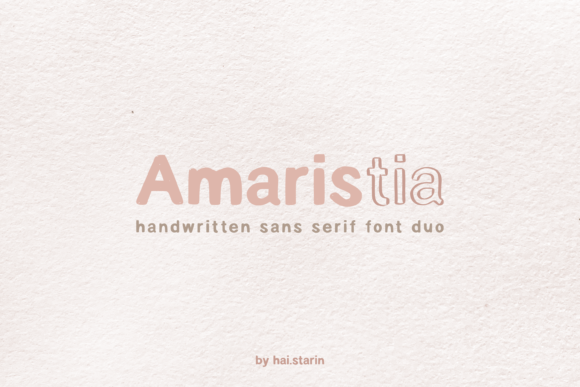
**Unleash Your Embroidered Vision with Amaristia: The Epitome of Elegance and Style**
Journey into the realm of embroidery, where threads intertwine to create masterpieces, and where fonts play a pivotal role in shaping the narrative. Allow us to introduce Amaristia, an exquisite sans serif font family that will transform your embroidery endeavors into captivating works of art.
**Amaristia:** A Font Symphony for Bold Expression
Amaristia is not merely a font; it's an artistic symphony, a harmonious blend of elegance and versatility. Its meticulously crafted characters dance across the fabric, leaving a trail of sophistication and charm. Whether you seek to adorn your garments with personalized messages, create captivating wall art, or design breathtaking logos, Amaristia will be your trusted companion, guiding you towards creative brilliance.
**A Tale of Two Styles: Solid and Outline, United in Beauty**
Within the Amaristia family, two distinct styles gracefully coexist: solid and outline. The solid font exudes a timeless allure, its confident strokes adding a touch of understated elegance to your designs. The outline version, on the other hand, possesses a playful charm, its delicate lines lending an air of whimsy and lightness.
**A Font for Every Embroidery Adventure**
Amaristia's versatility knows no bounds. Whether you're embarking on a creative journey to craft personalized gifts, adding a unique touch to home décor, or seeking to make a bold statement in marketing materials, Amaristia will effortlessly adapt to your vision, transforming your ideas into tangible works of art.
**Embark on an Embroidered Odyssey with Amaristia**
With Amaristia as your creative ally, the possibilities are endless. Dive into the world of embroidery, where fabrics become canvases, threads become brushes, and fonts become the colors that paint the picture of your imagination. Let Amaristia guide you on this artistic odyssey, leaving a legacy of beauty and inspiration in its wake.